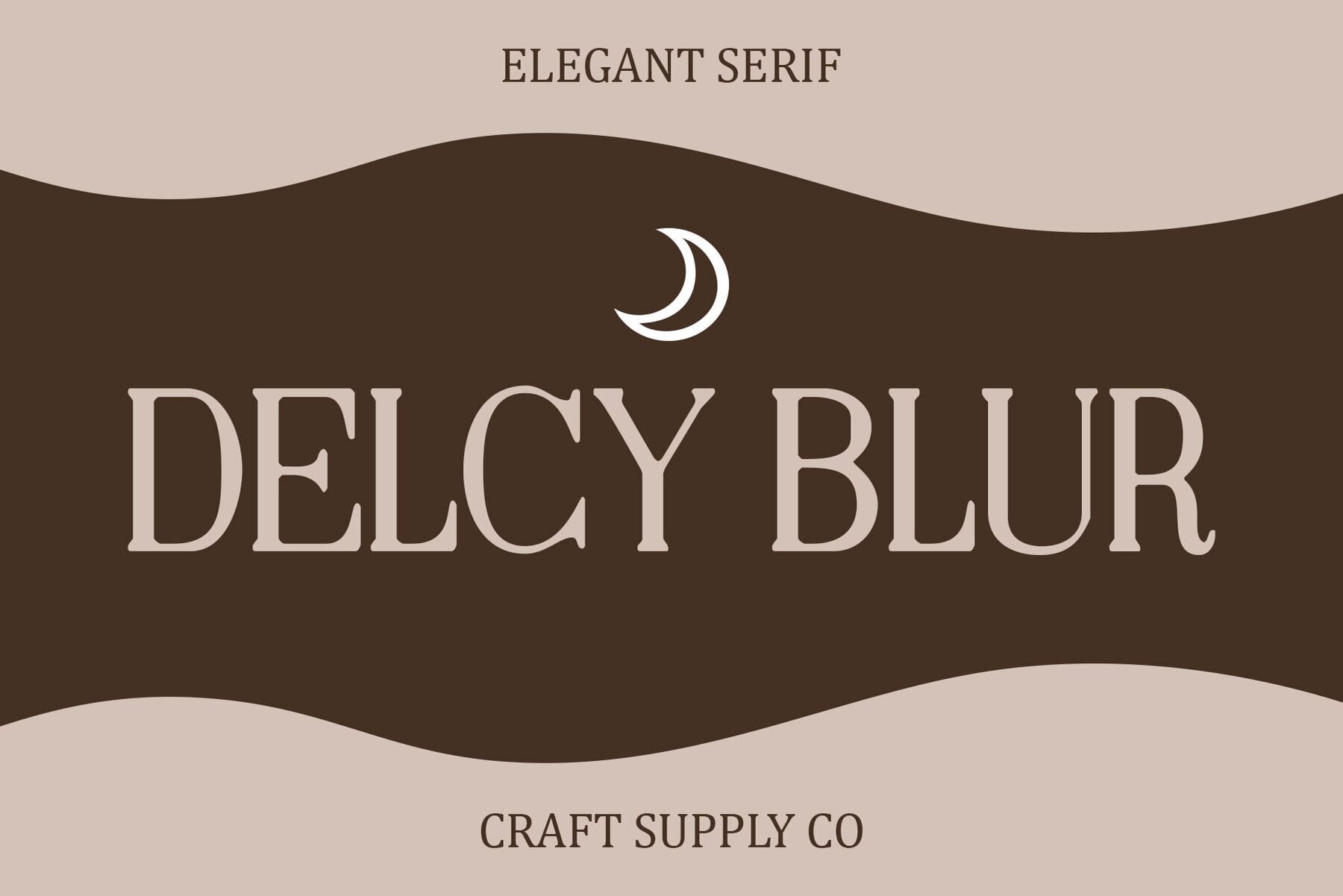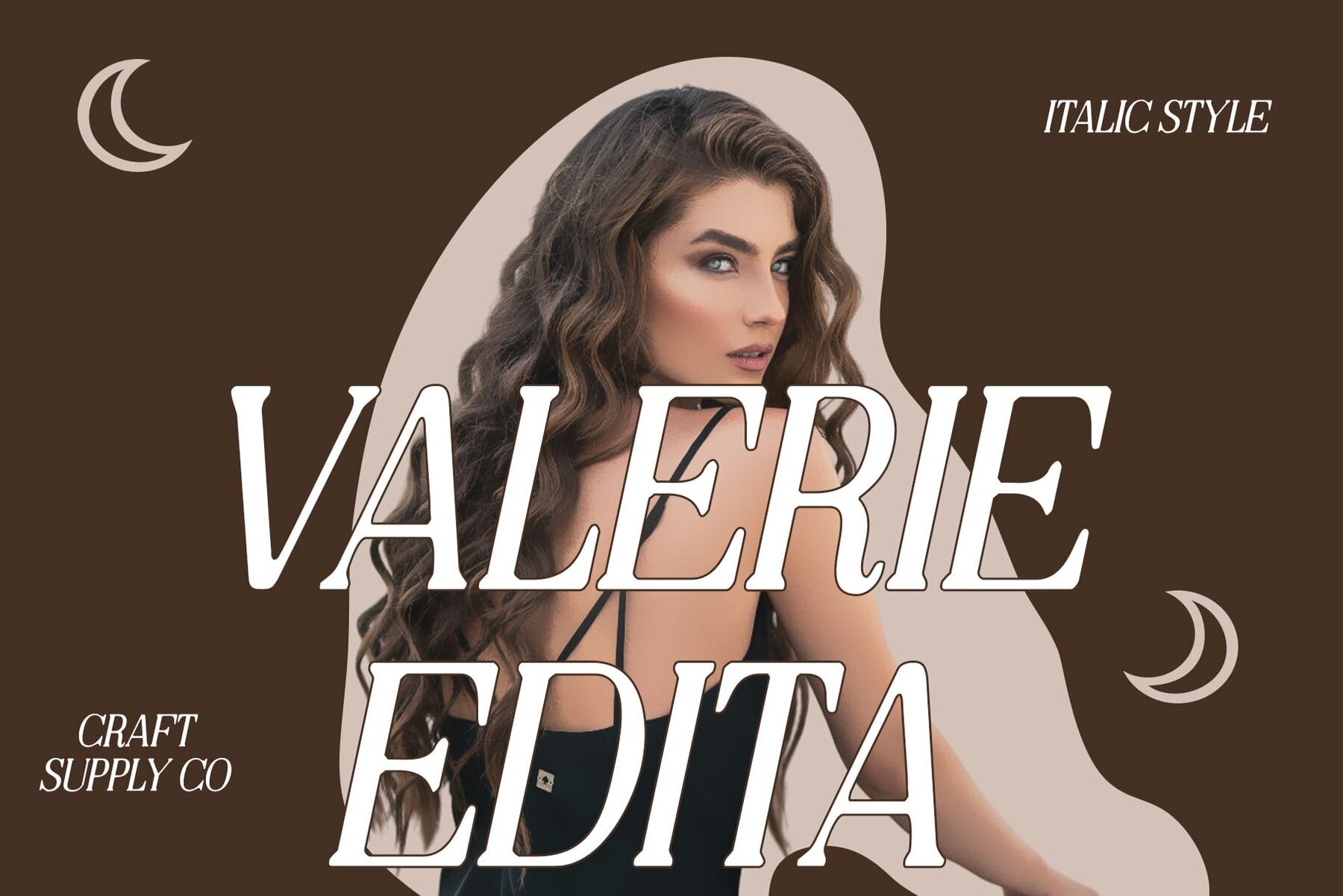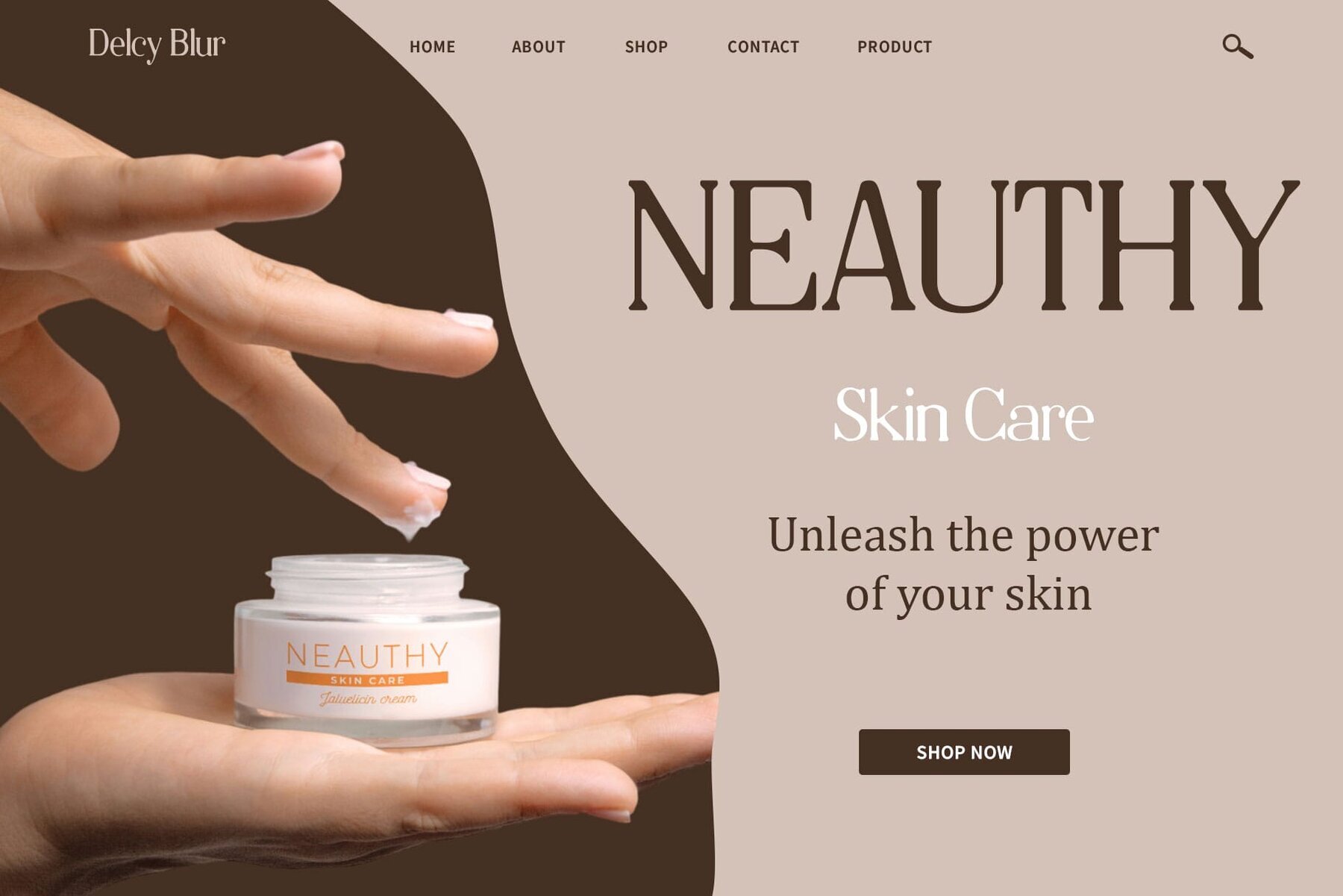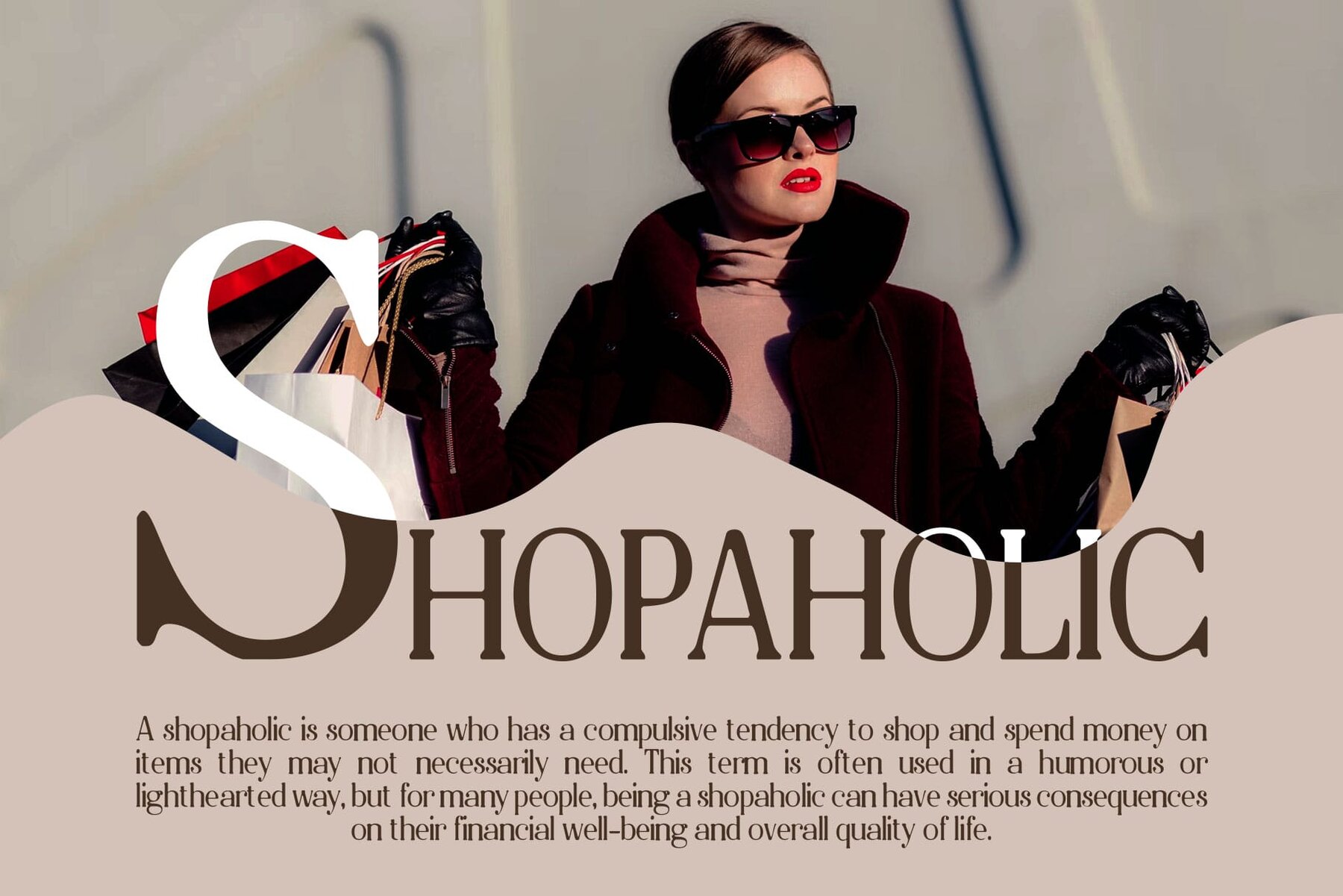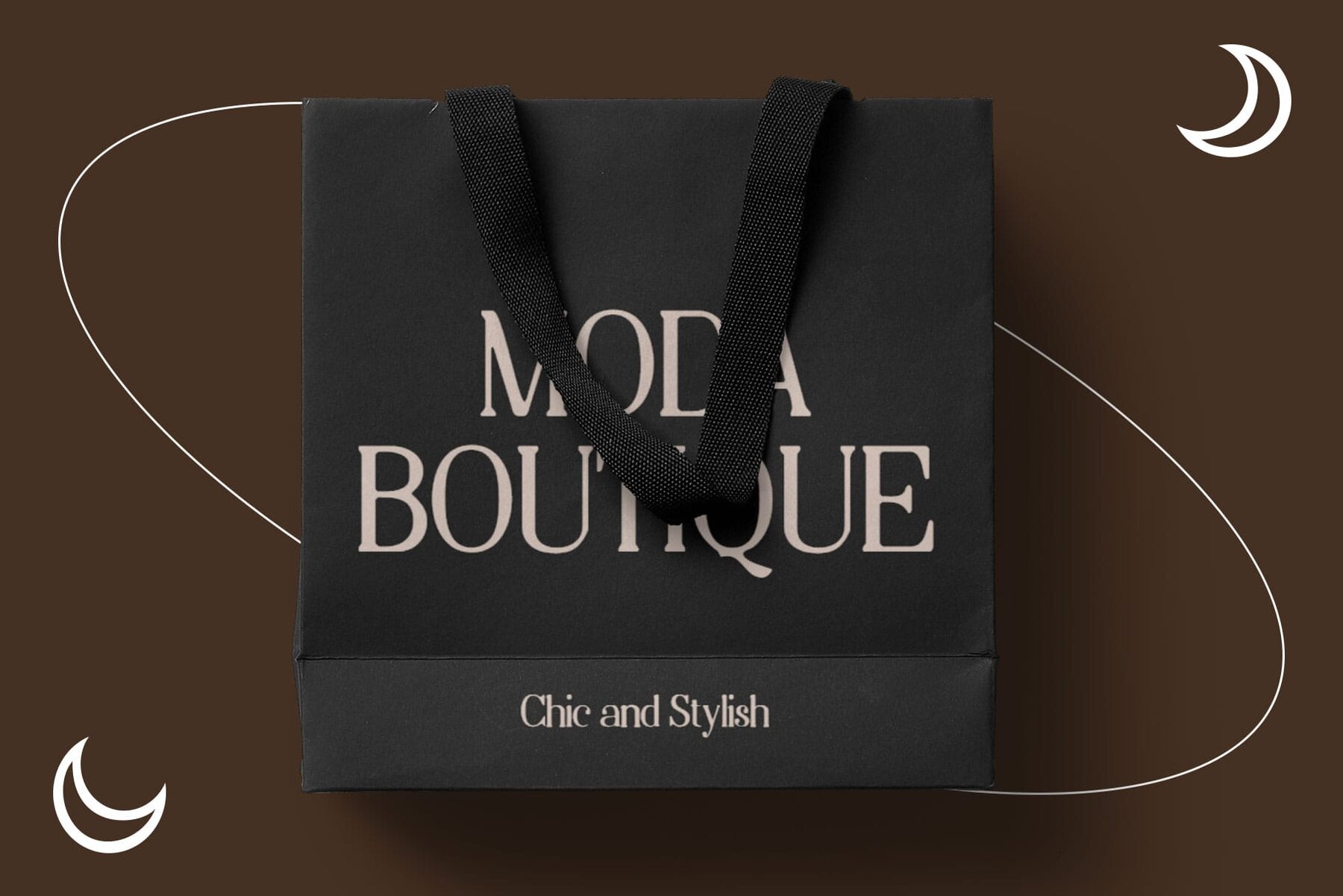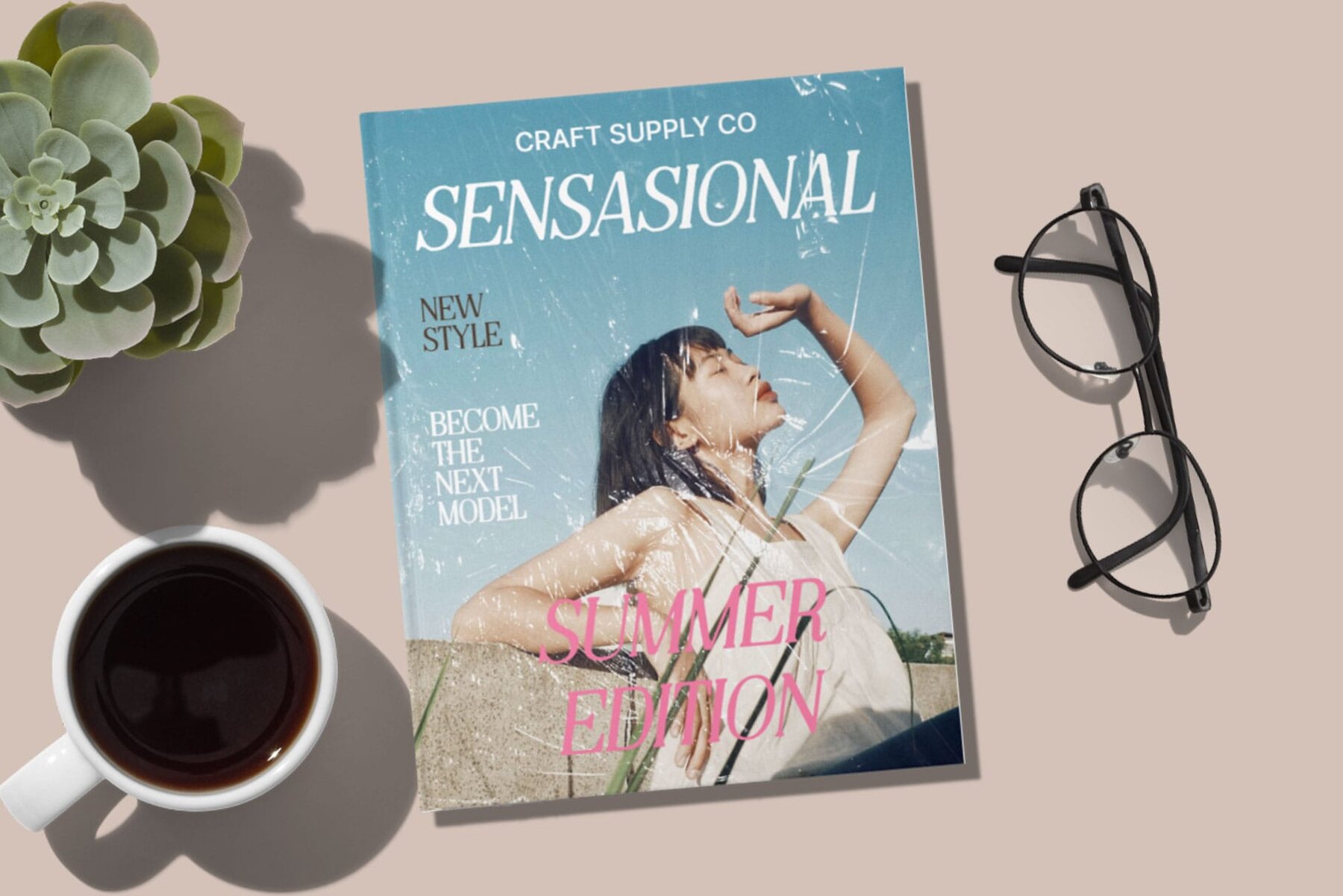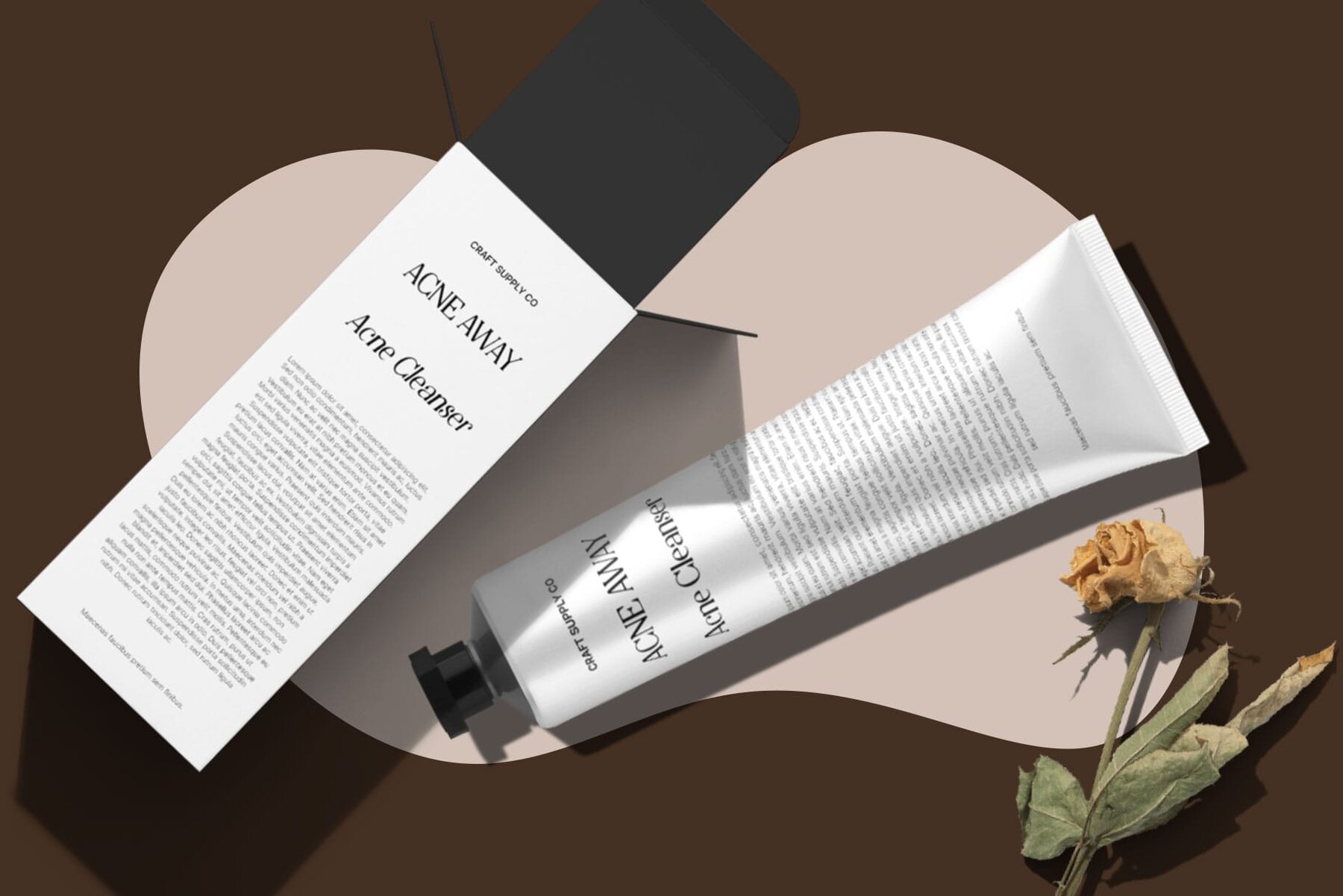
Delcy Blur Font
Delcy Blur, crafted by Craft Supply Co., represents a seamless blend of traditional and contemporary elements in typography. This typeface stands out with its timeless serif design characterized by low contrast, appealing to both classical and modern aesthetics. Delcy Blur is available for purchase through Craft Supply Co., with various licensing options to accommodate different usage needs, such as commercial projects and personal use.Delcy Blur: Classic Charm with a Modern Twist
Design Attributes